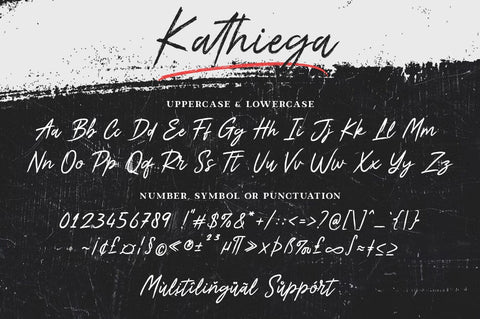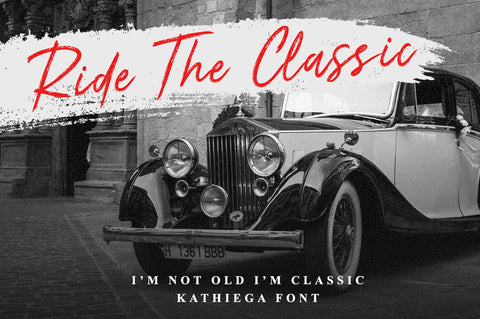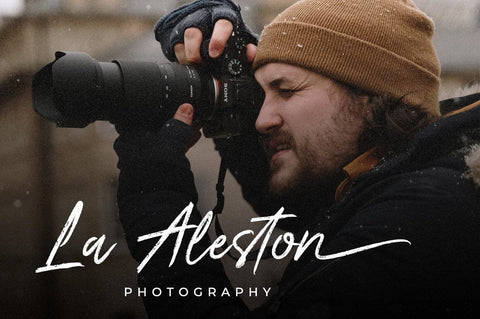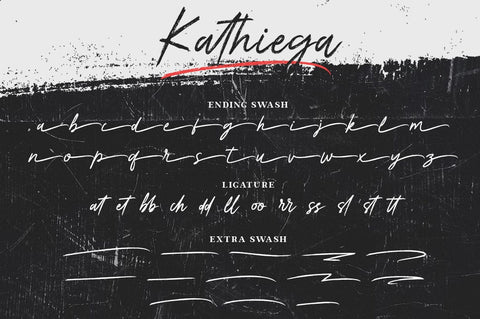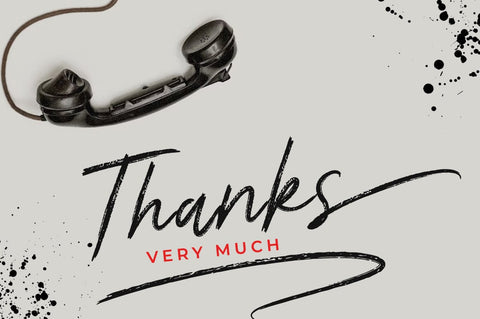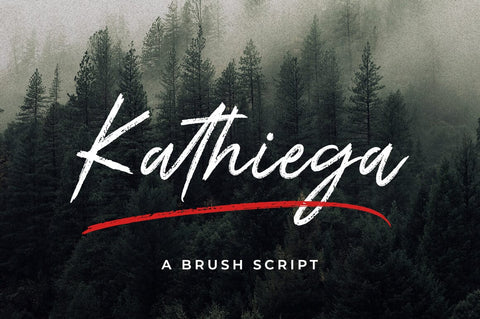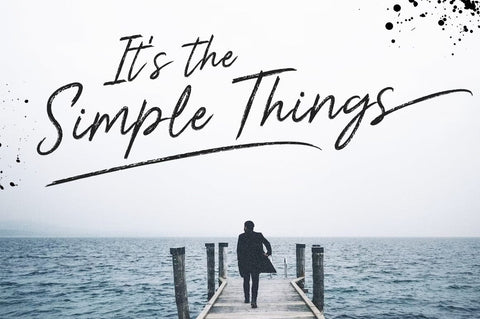
Kathiega
Kathiega is a handwritten brush script written in a relaxed and natural way. The letters were created with a brush on paper and then scanned and carefully drawn into a vector format. This typeface is ideal for use in any professional project, such as blog titles, posters, wedding elements, t-shirts, clothing, book covers, business cards, greeting cards, branding, merchandise, etc.